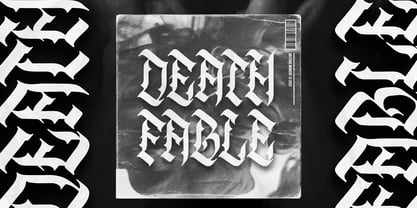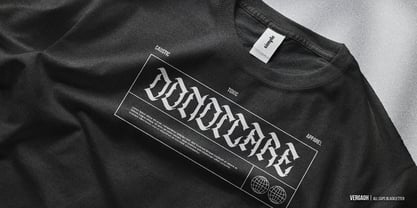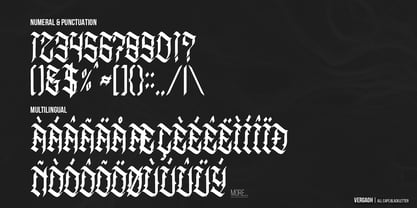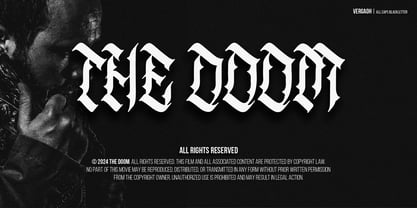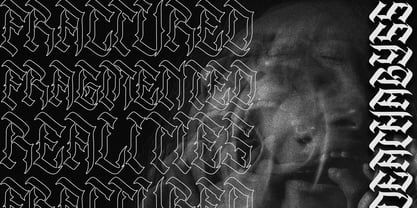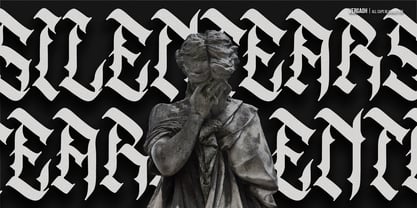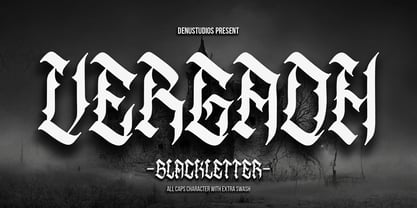
Vergaoh
by Denustudio
The Vergaoh Font Family was designed by Dede Nugraha and published by Denustudio. Vergaoh contains 1 styles.
Vergaoh | All Caps Blackletter Font, from Denustudios, suitable for any projects such as: logos, branding projects, homeware designs, product packaging, mugs, quotes, posters, shopping bags, t-shirts, book covers, name card, invitation cards, greeting cards, label, photography, watermark, special events, and all your other lovely projects that need a All Caps Blackletter Font taste.
• Regular and Italic
• Standard glyphs
• Alternate and Ligature
Designers: Dede Nugraha
Publisher: Denustudio
Foundry: Denustudio